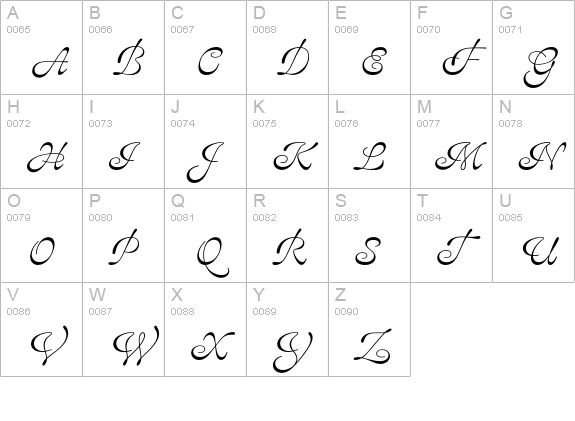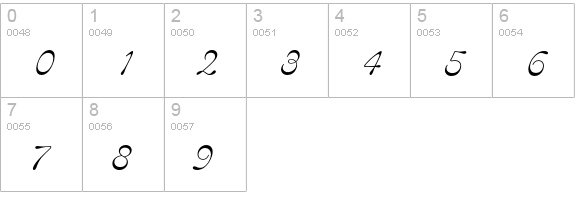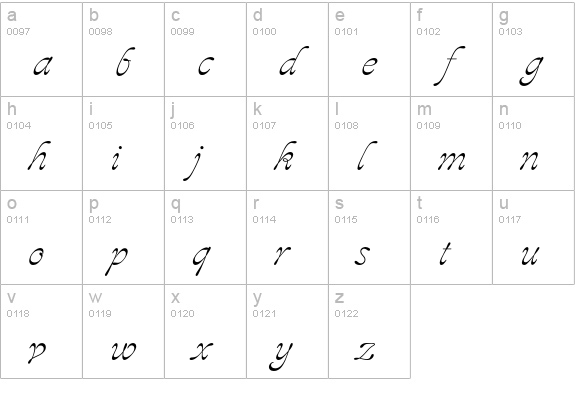
Aja R Font Details
Aja R is a stunning and elegant font that exudes sophistication and style. With its sleek lines and perfect balance of curves, this font is perfect for adding a touch of class to any project. Whether you're designing a wedding invitation, a logo, or a branding project, Aja R will elevate your design to new heights. The best part? Aja R is completely free to download at FontsMarket.com. This means you can add this beautiful font to your collection without spending a dime. Don't miss out on the opportunity to enhance your designs with the timeless beauty of Aja R. Download it now and see the difference it can make in your projects.